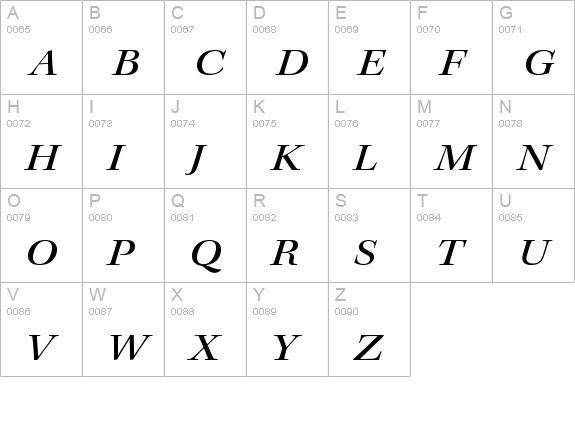
Kepler Std Medium Extended Italic Subhead is a balanced, medium-weight, extended-width, italic variant in the Kepler typeface family \xE2\x80\x94 well suited to sub-headlines, navigation, and balanced editorial work.
Kepler Std Medium Extended Italic Subhead font is a versatile and stylish typeface that adds a touch of elegance and sophistication to any design project. With its extended and italicized characteristics, this font is perfect for subheadings and titles, creating a visually appealing hierarchy within your text. The medium weight of Kepler Std Medium Extended Italic Subhead strikes the perfect balance between legibility and impact, making it suitable for a wide range of applications, from print materials to digital designs. Its clean and modern letterforms ensure optimal readability, while the subtle italic slant adds a hint of dynamism and flair. One of the standout features of Kepler Std Medium Extended Italic Subhead font is its availability as a free download. FontsMarket.com is proud to offer this font freely, allowing designers and creatives to access and utilize it without any constraints. This generosity not only makes Kepler Std Medium Extended Italic Subhead font accessible to a wider audience but also encourages creativity and innovation. Whether you are designing a branding project, a magazine layout, or a website, Kepler Std Medium Extended Italic Subhead font is a reliable choice that will elevate your design to new heights. Its versatility, legibility, and elegant aesthetics make it a must-have in any designer's toolkit. Take advantage of the opportunity to freely download Kepler Std Medium Extended Italic Subhead font today at FontsMarket.com and unlock the potential to create stunning and captivating designs that leave a lasting impression.